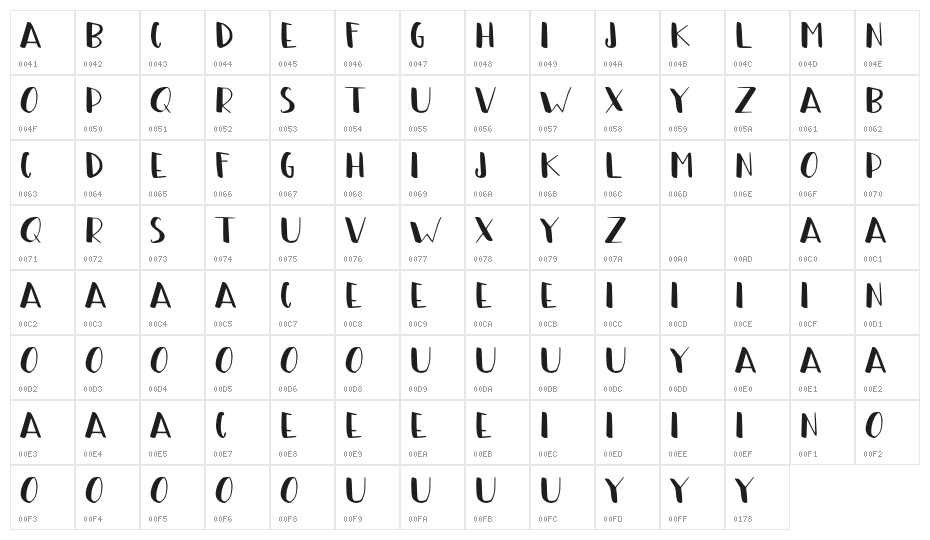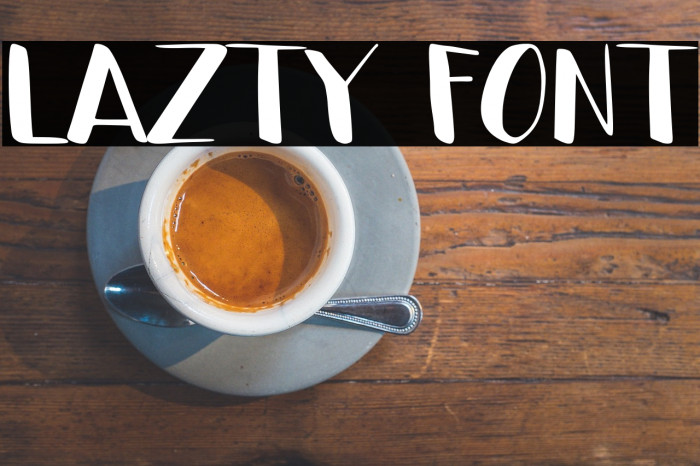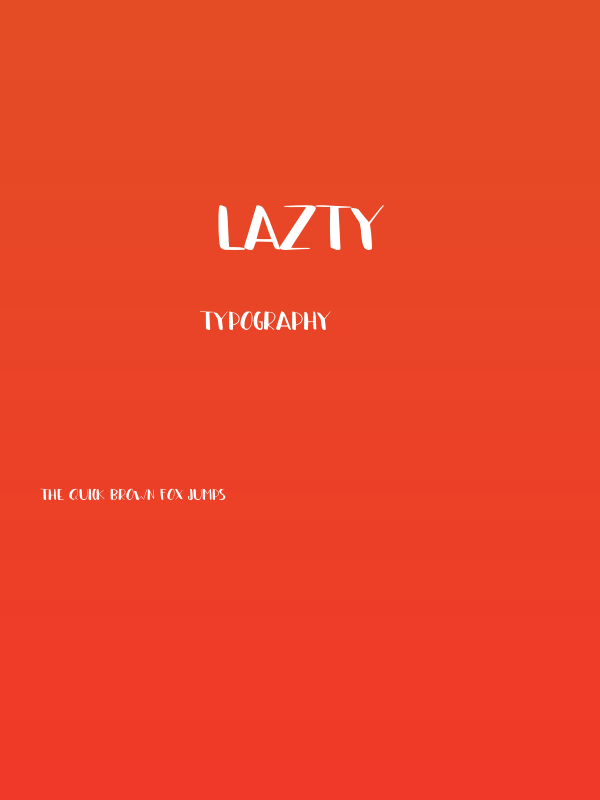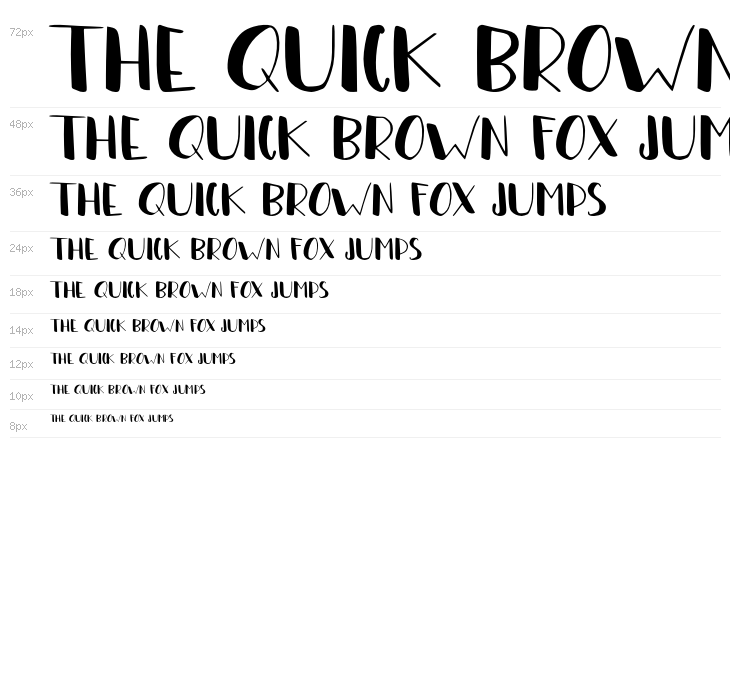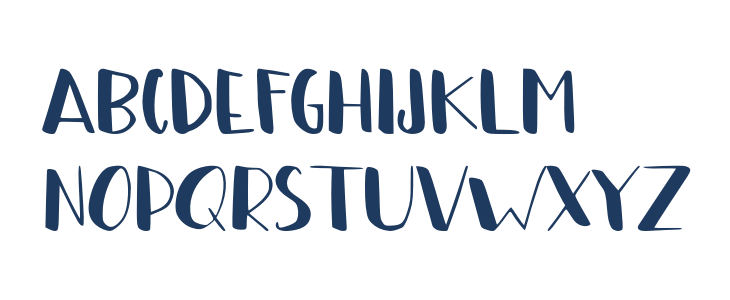
Lazty Font
Lazty Description
This font features a playful and bold design with a hand-drawn aesthetic. The uppercase letters are characterized by their thick strokes and slightly irregular shapes, giving them a whimsical and informal appearance. The lowercase letters maintain the same playful style, with some letters having unique and quirky forms that add to the font's charm. The overall look is casual and friendly, making it suitable for creative and fun projects. The font does not include numbers or special characters, focusing solely on the alphabet.
| Overall Style | Playful |
| Proposed Projects | Ideal for children's books, playful branding, greeting cards, and creative posters. |